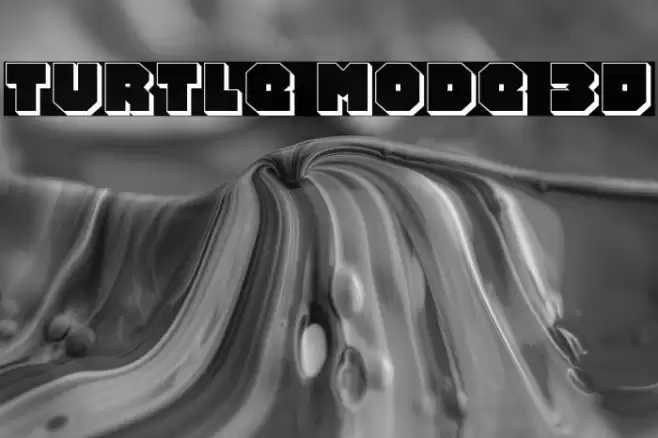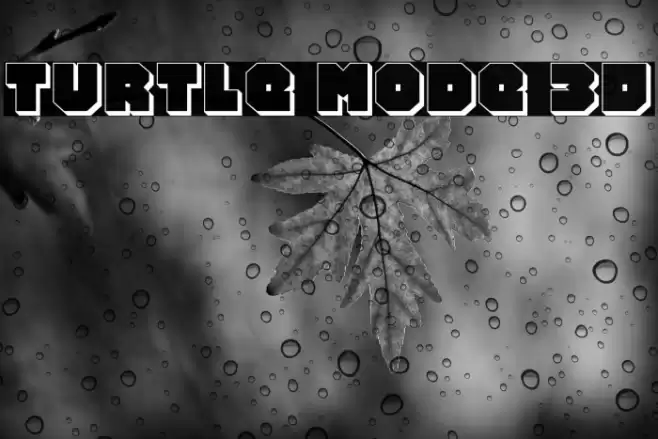
Turtle Mode 3D Font
Turtle Mode 3D Description
This font features a bold, three-dimensional style with a strong presence. Each character is designed with a thick outline and a shadow effect that gives a sense of depth and solidity. The geometric shapes are consistent throughout, providing a uniform and cohesive look. The uppercase and lowercase letters maintain the same visual weight, ensuring readability and impact. The numerals and special characters are crafted with the same attention to detail, making them stand out. This font is ideal for projects that require a striking and modern aesthetic.
A bold, 3D geometric font with strong outlines and shadow effects from Uncategorized fonts.
- Proposed Projects: Ideal for posters, logos, video game titles, and any design needing a bold, modern touch.